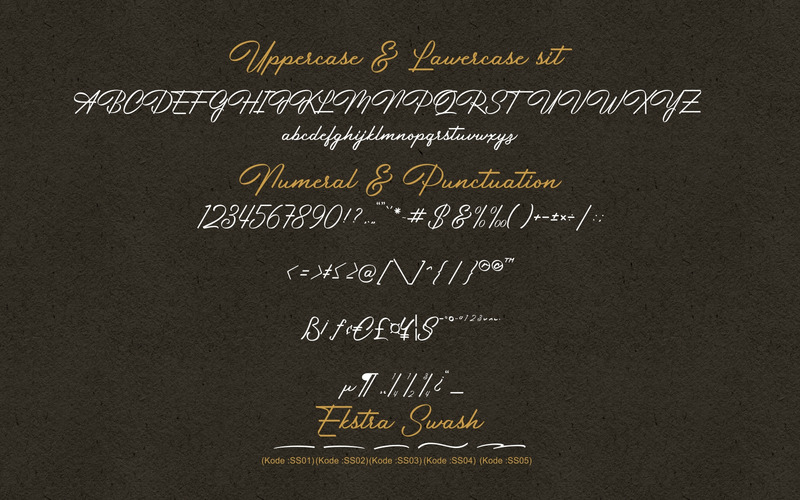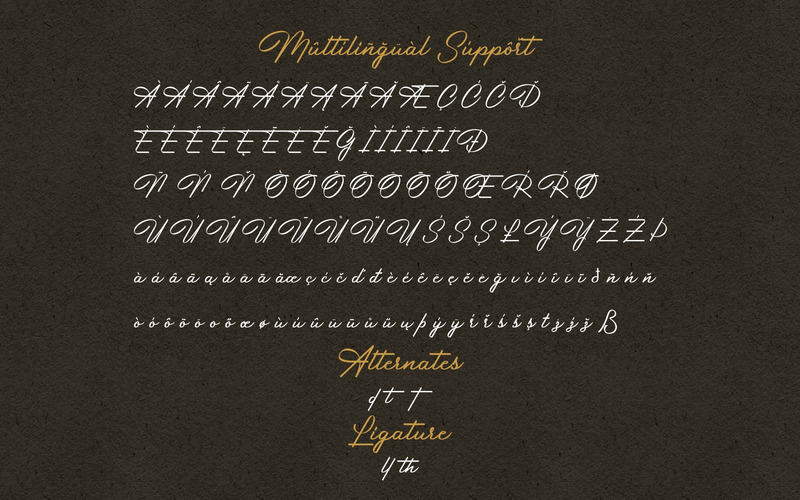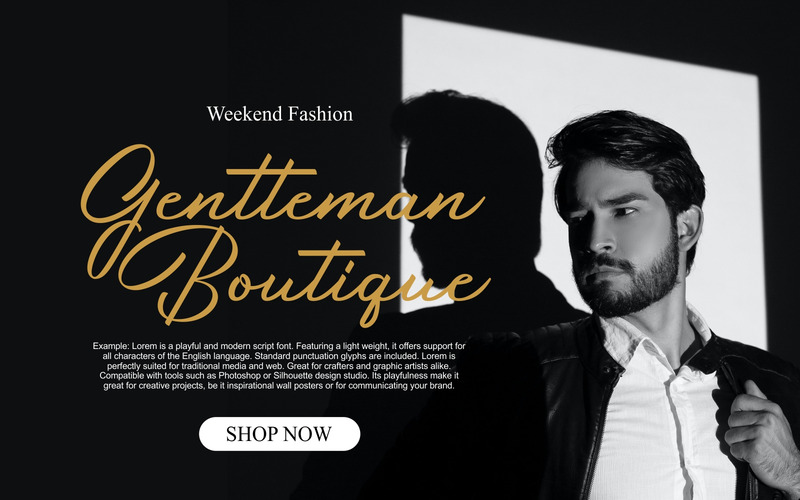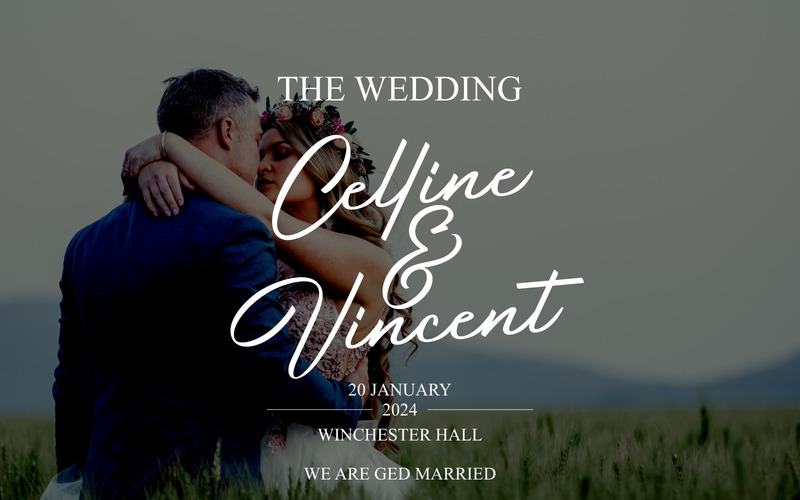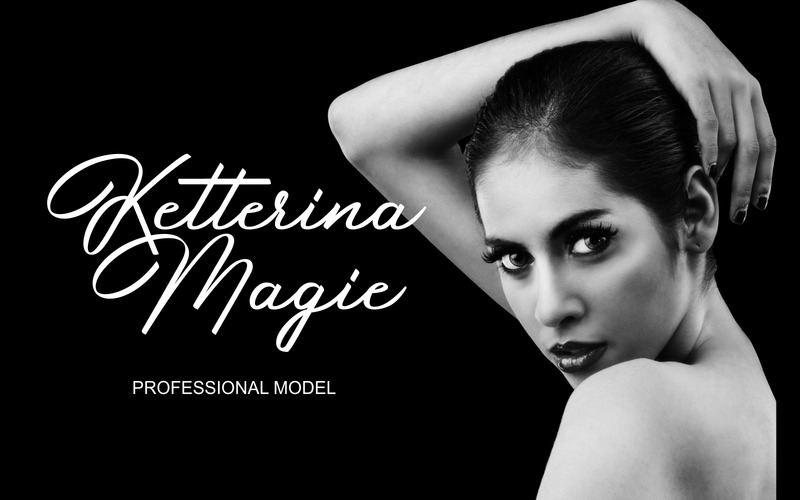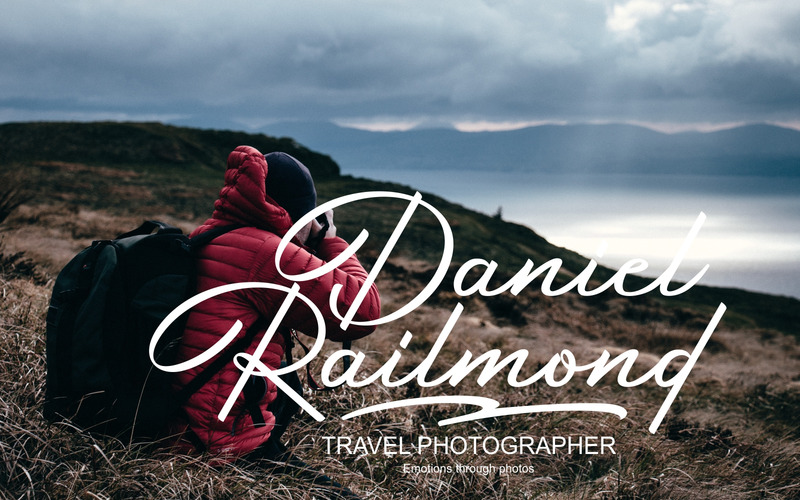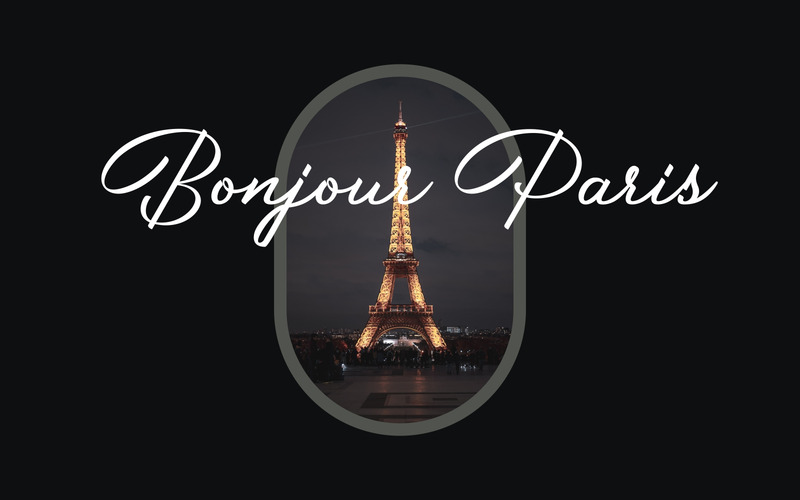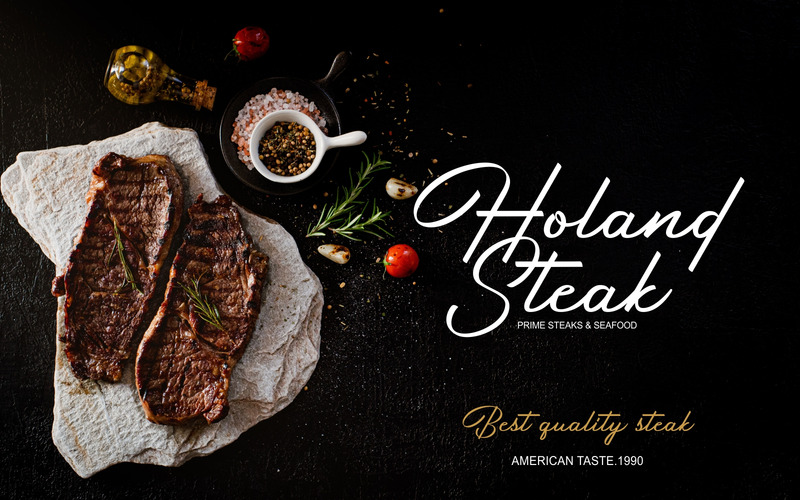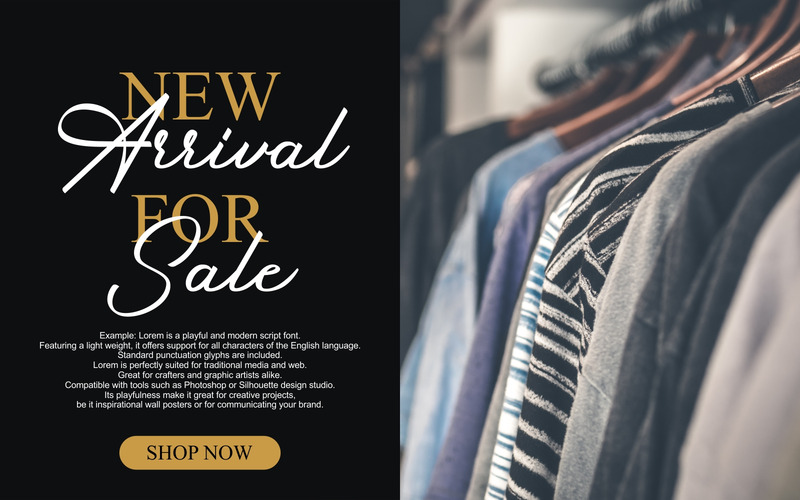
Junethes - Stylish Signature Font
Introducing Junethes - Stylish Signature Font
Junethes is a sweet script typeface with legibility and authenticity. Use it for any design project that requires a personalized appearance!
This font is suitable for use on photography, business cards, weddings, t-shirt designs, logos, magazines, quotes, fashion, watermarks, invitations, signatures.